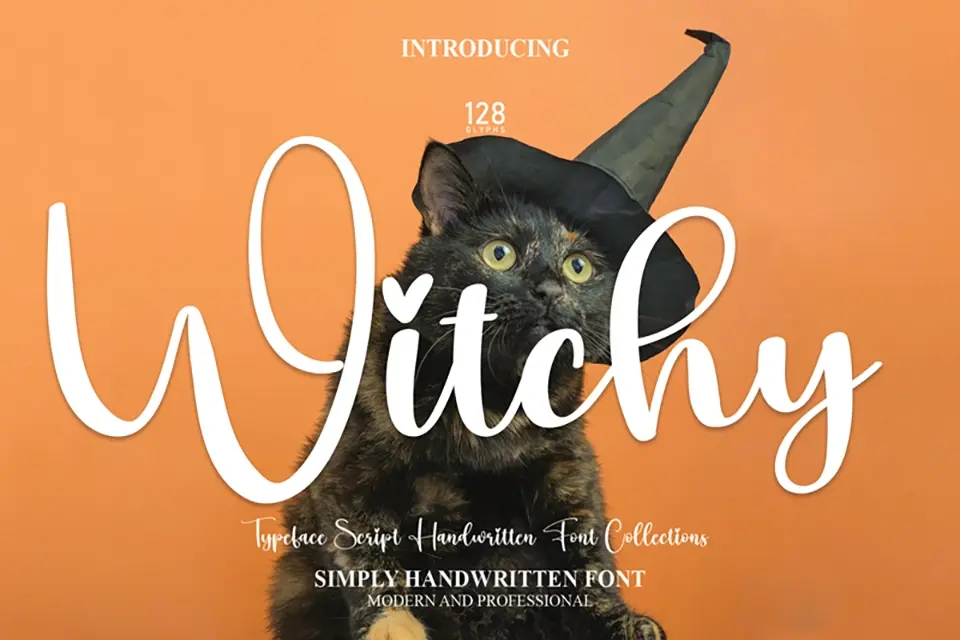
Witchy Font
Witchy is a modern and charming calligraphy handwritten font that exudes elegance and personality. Its graceful, flowing strokes and sophisticated character make it perfect for upscale invitations, personal branding, chic editorial designs, wedding projects, social media logos, and creative typography. Elevate your projects with the refined allure of this font.